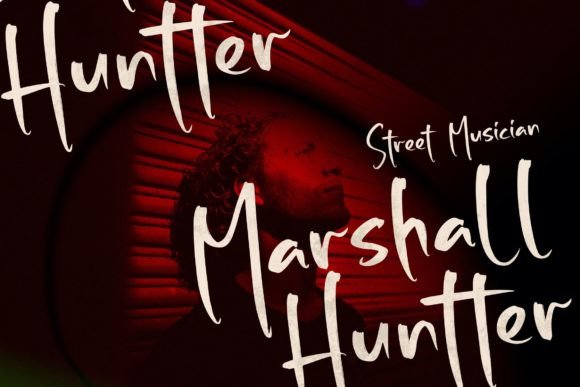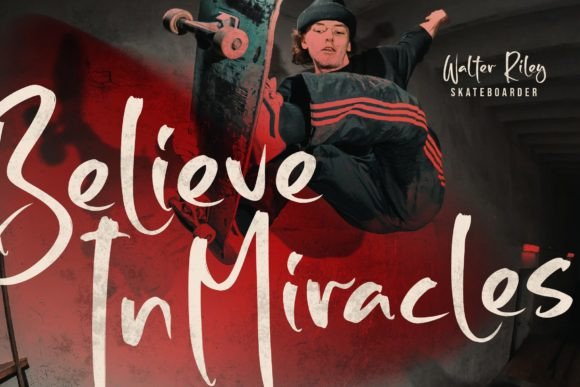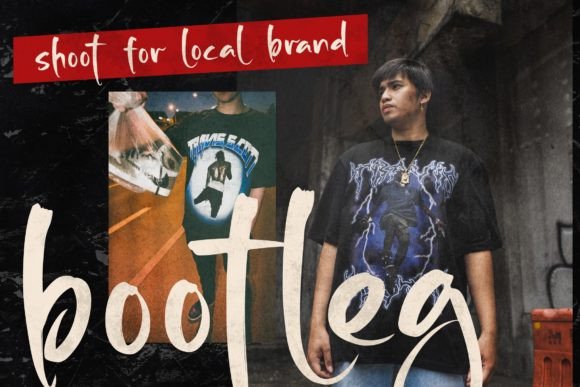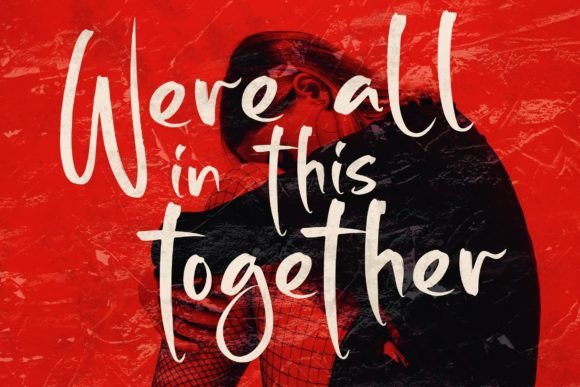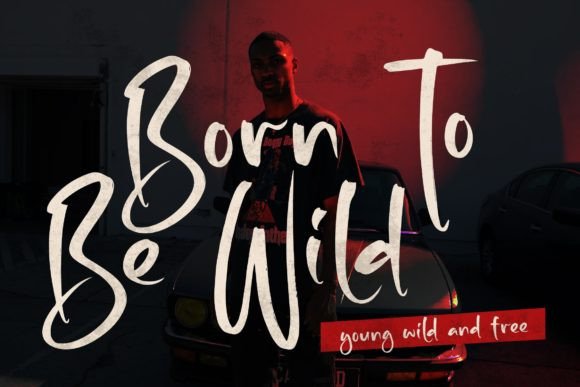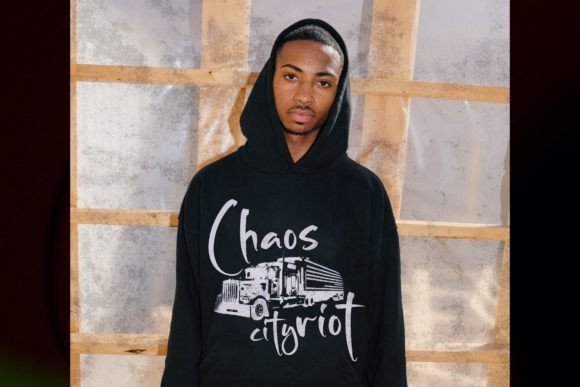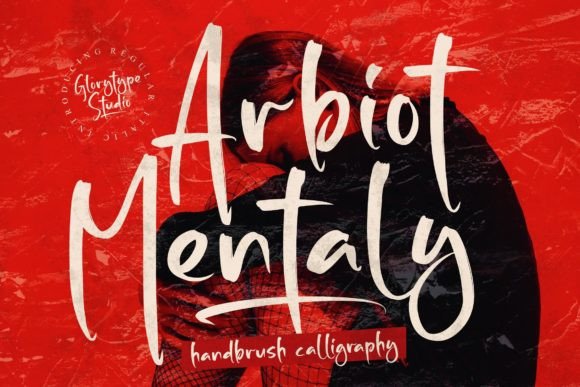
Introducing Arbiot Mentaly Font: The Perfect Brush Handwritten Font for Your Creative Projects
Are you a designer or crafter looking for a unique and beautiful font to add a personal touch to your projects? Look no further than Arbiot Mentaly Font, a stunning brush handwritten font that’s perfect for a wide range of creative endeavors. In this article, we’ll explore the features and benefits of Arbiot Mentaly Font, and show you how it can elevate your designs to the next level.
What is Arbiot Mentaly Font?
Arbiot Mentaly Font is a brush handwritten font that’s designed to bring a touch of elegance and sophistication to your projects. With its flowing, cursive strokes and delicate lettering, this font is perfect for adding a personal and creative touch to any design. Whether you’re working on a logo, branding, homeware design, product packaging, or any other project, Arbiot Mentaly Font is the perfect choice.
What Can I Use Arbiot Mentaly Font For?
Arbiot Mentaly Font is incredibly versatile, and can be used for a wide range of projects, including:
- Logos and branding: Create a unique and memorable logo for your business or brand with Arbiot Mentaly Font.
- Homeware designs: Add a touch of elegance to your homeware designs, such as ceramics, textiles, and wallpaper.
- Product packaging: Make your product packaging stand out with Arbiot Mentaly Font, perfect for labels, tags, and packaging materials.
- Mugs and ceramics: Create beautiful and unique designs for mugs, plates, and other ceramics.
- Quotes and posters: Add a touch of inspiration to your quotes and posters with Arbiot Mentaly Font.
- Shopping bags: Create eye-catching shopping bags with Arbiot Mentaly Font, perfect for retail and branding.
- T-shirts and apparel: Design unique and stylish T-shirts and apparel with Arbiot Mentaly Font.
- Book covers and journals: Create stunning book covers and journals with Arbiot Mentaly Font.
- Name cards and invitation cards: Add a touch of elegance to your name cards and invitation cards.
- Greeting cards and labels: Create beautiful and unique greeting cards and labels with Arbiot Mentaly Font.
- Photography and watermark: Use Arbiot Mentaly Font as a watermark for your photos, or add it to your photography designs.
- Special events: Create stunning designs for special events, such as weddings, birthdays, and anniversaries.
Why Choose Arbiot Mentaly Font?
So why choose Arbiot Mentaly Font for your projects? Here are just a few reasons:
- Unique and creative: Arbiot Mentaly Font is a one-of-a-kind font that’s sure to make your designs stand out.
- Elegant and sophisticated: With its flowing, cursive strokes and delicate lettering, Arbiot Mentaly Font adds a touch of elegance and sophistication to any design.
- Versatile: Arbiot Mentaly Font can be used for a wide range of projects, from logos and branding to homeware designs and product packaging.
Tips for Using Arbiot Mentaly Font
Here are a few tips for getting the most out of Arbiot Mentaly Font:
- Experiment with different colors: Arbiot Mentaly Font looks stunning in a range of colors, from bold and bright to soft and pastel.
- Play with font sizes: Arbiot Mentaly Font can be used at a range of font sizes, from large and bold to small and delicate.
- Combine with other fonts: Arbiot Mentaly Font pairs beautifully with other fonts, so don’t be afraid to experiment with different combinations.
- Add textures and patterns: Add an extra layer of interest to your designs by combining Arbiot Mentaly Font with textures and patterns.
Arbiot Mentaly Font is a stunning brush handwritten font that’s perfect for designers and crafters looking to add a touch of elegance and sophistication to their projects. With its unique and creative design, versatility, and ease of use, Arbiot Mentaly Font is the perfect choice for a wide range of creative endeavors. So why wait? Download Arbiot Mentaly Font today and start creating beautiful and unique designs that will make your projects stand out.